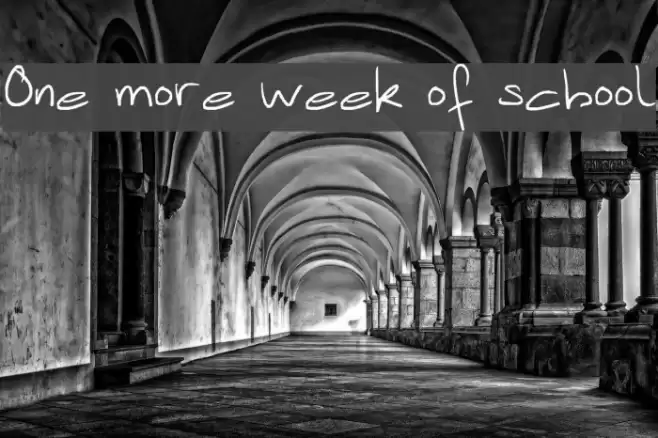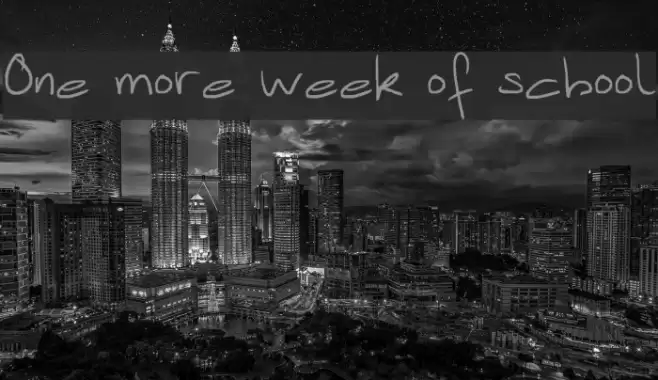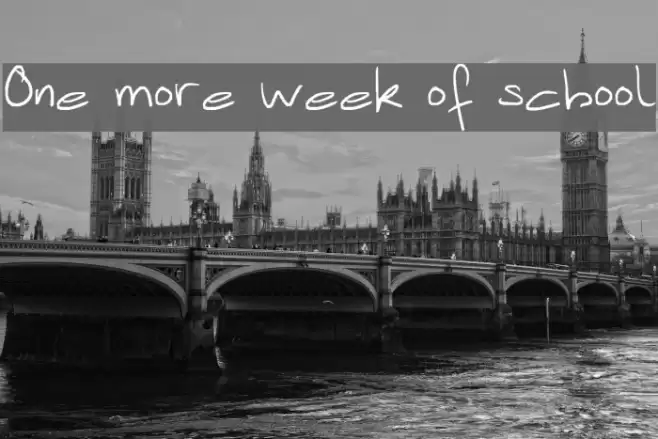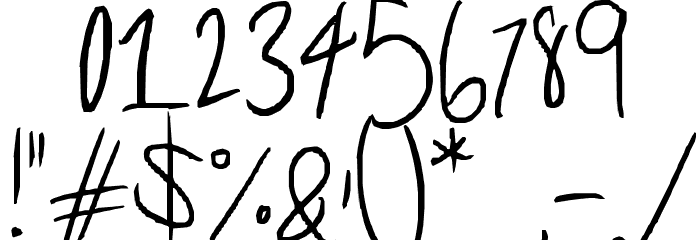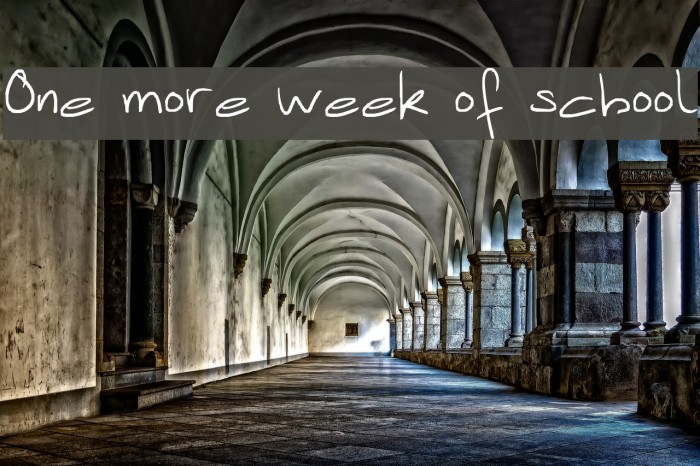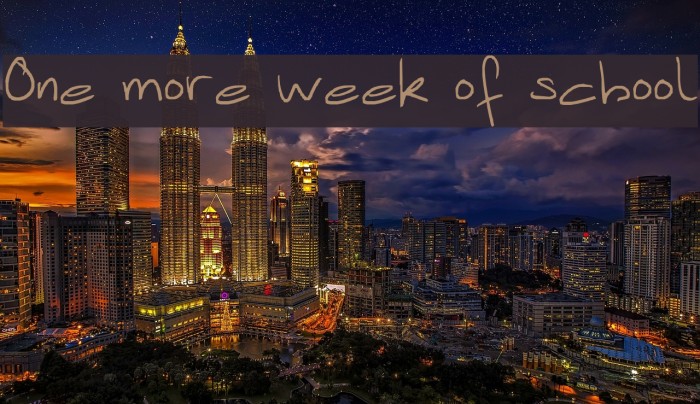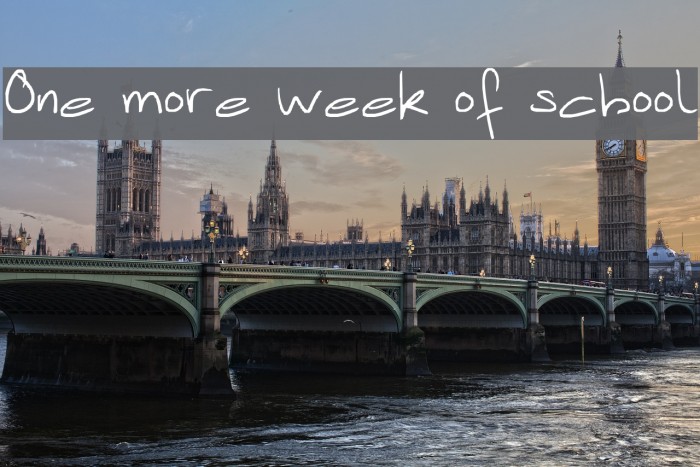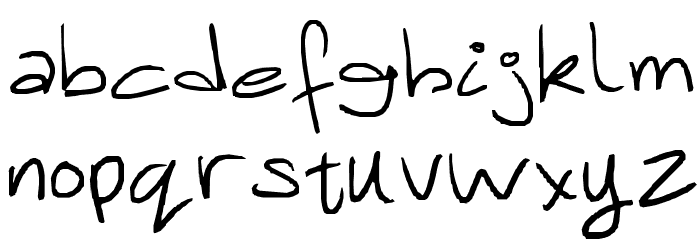
One more week of school Font
One more week of school Description
This font exudes a casual and playful handwritten style, characterized by its irregular and organic letterforms. The strokes are uneven, giving it a natural, human touch that mimics the look of writing with a marker or pen. The uppercase and lowercase letters maintain a consistent flow, while the numerals and special characters integrate seamlessly with the overall aesthetic. This font's informal appearance makes it ideal for projects that require a personal or whimsical touch, such as greeting cards, children's books, or creative posters.
A casual, playful handwritten font with an organic, natural style from Uncategorized fonts.
- Proposed Projects: Ideal for greeting cards, children's books, creative posters, and informal invitations.
- Overall Style: Casual, Playful
- Use Case: Headlines, Informal text, Creative projects